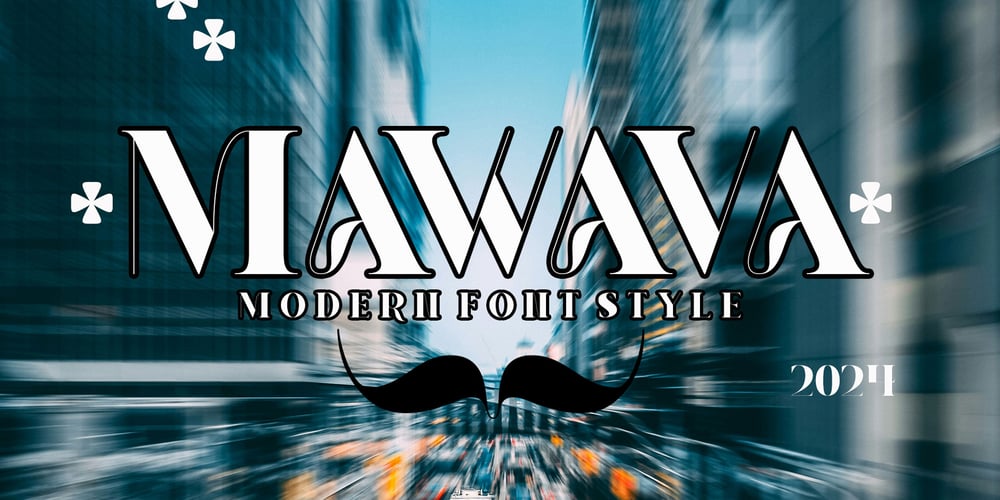
Mawava Font Family was designed by Canden Meutuah and published by Canden Meutuah. Mawava contains 9 styles and family package options. it is a geometric family typeface available in nine thicknesses. This is a simple and elegant modern font family, this font family is very suitable especially for headlines, titles, brands, posters, packaging, titles, logos, and so on.thank you